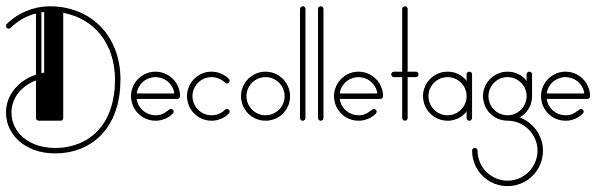
Decolletage
Decolletage is a fashionably late Art Deco typeface with a wealth of OpenType features. It features both uppercase and lowercase alphabets. Use the uppercase alone for titling, logos and display work, or with the lowercase for an elegant body text...